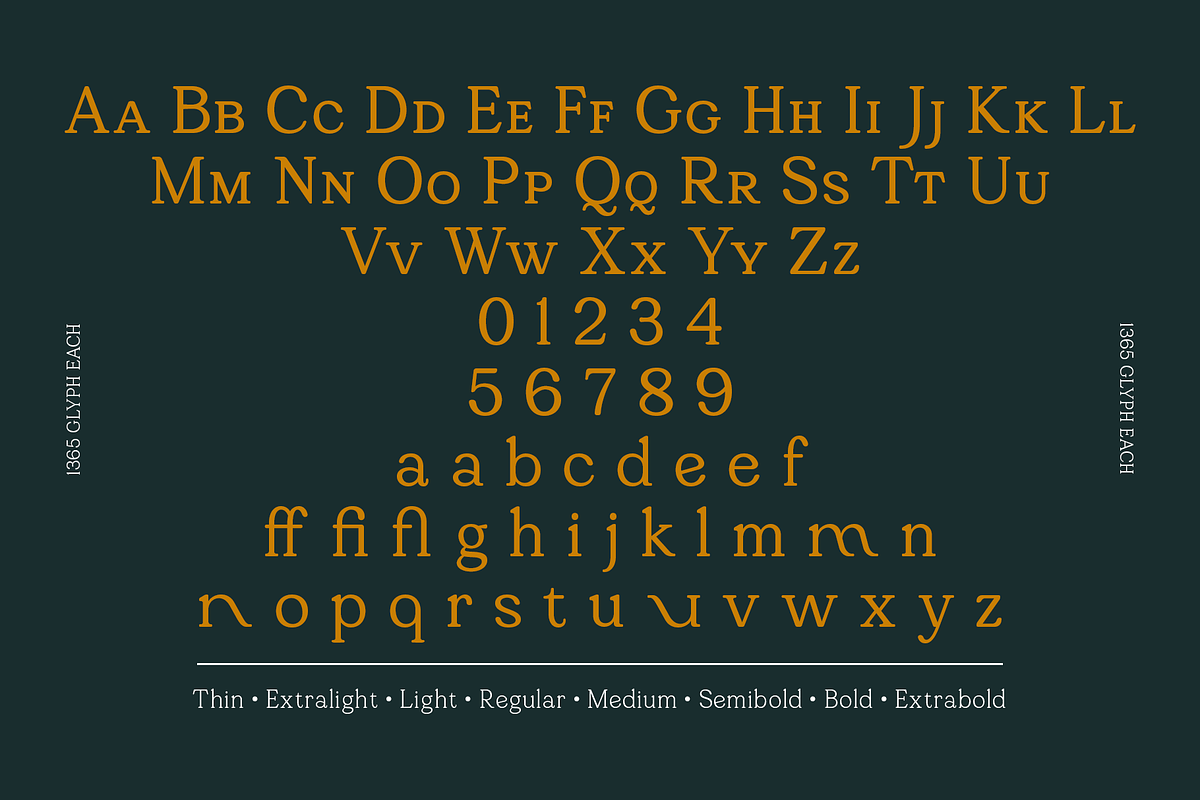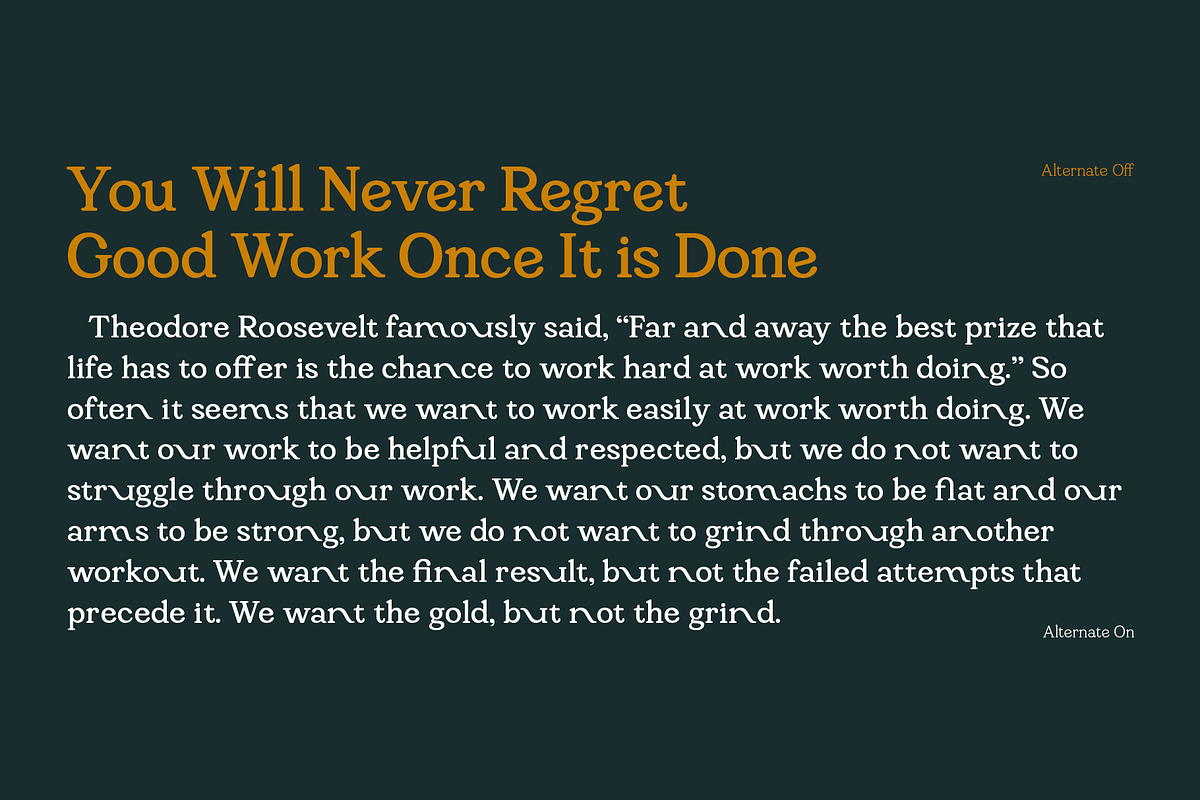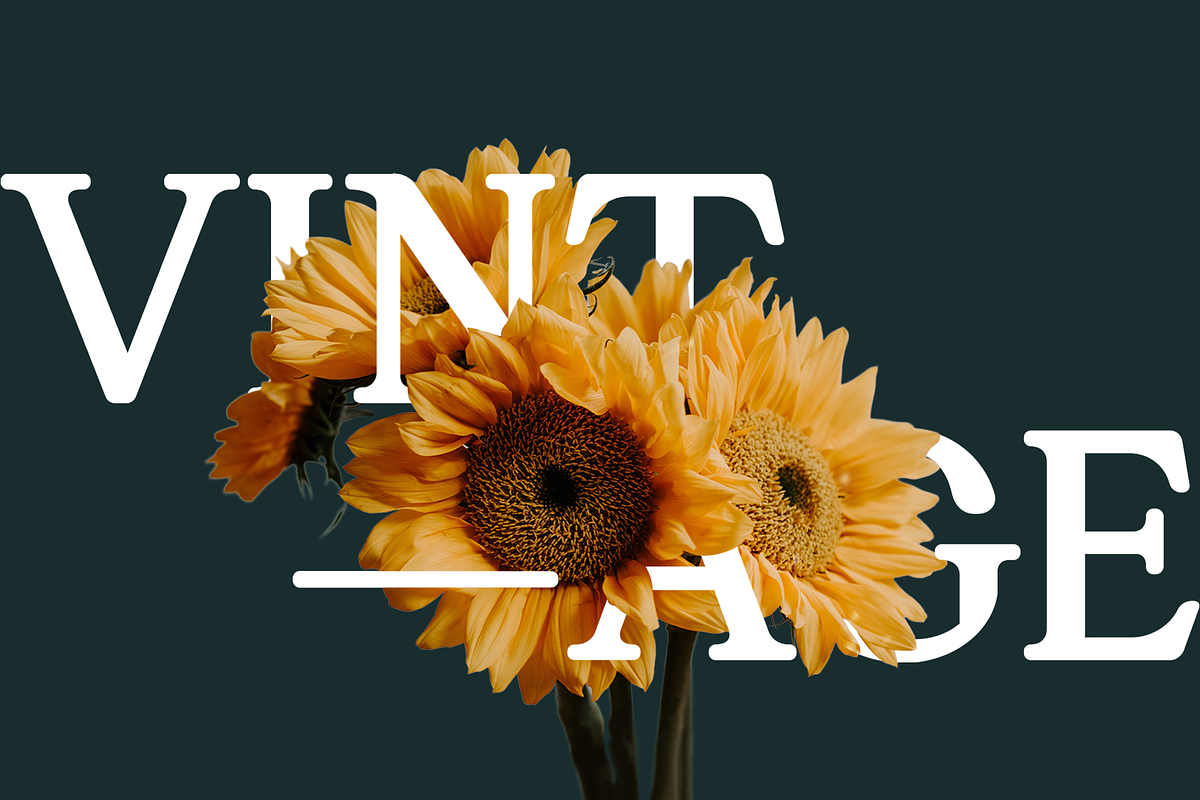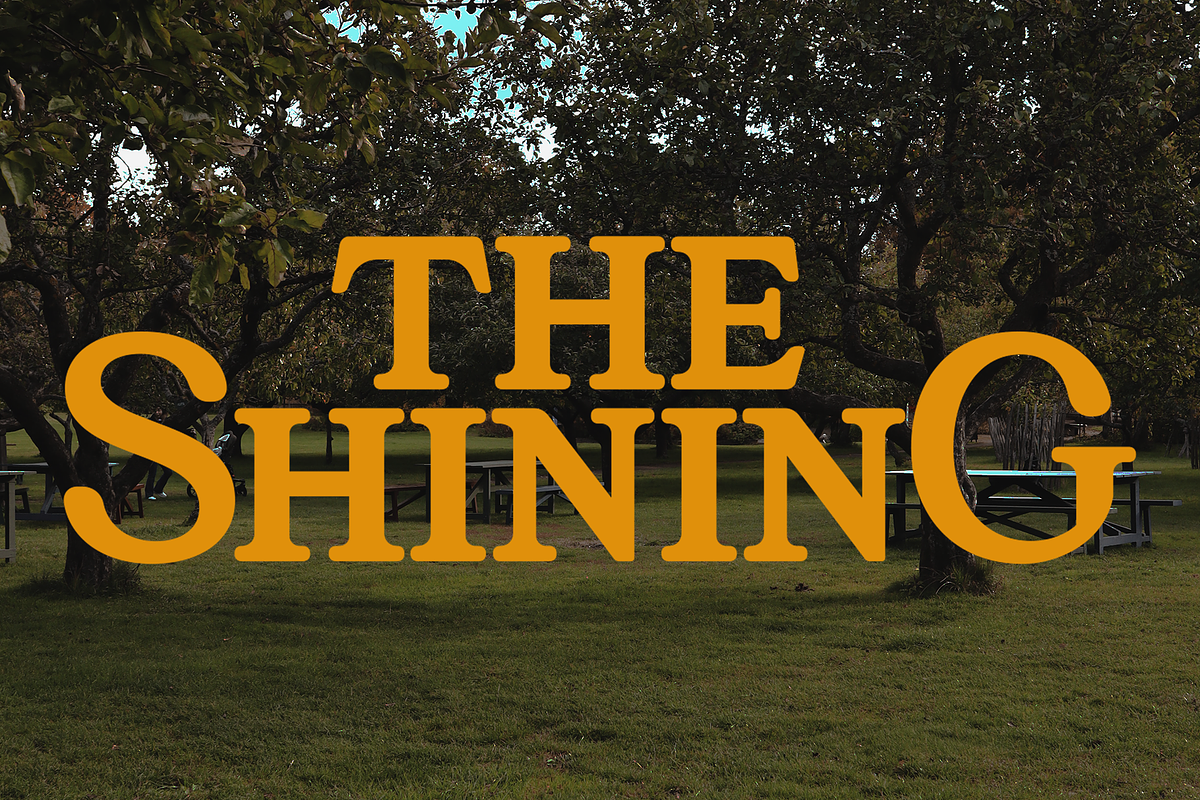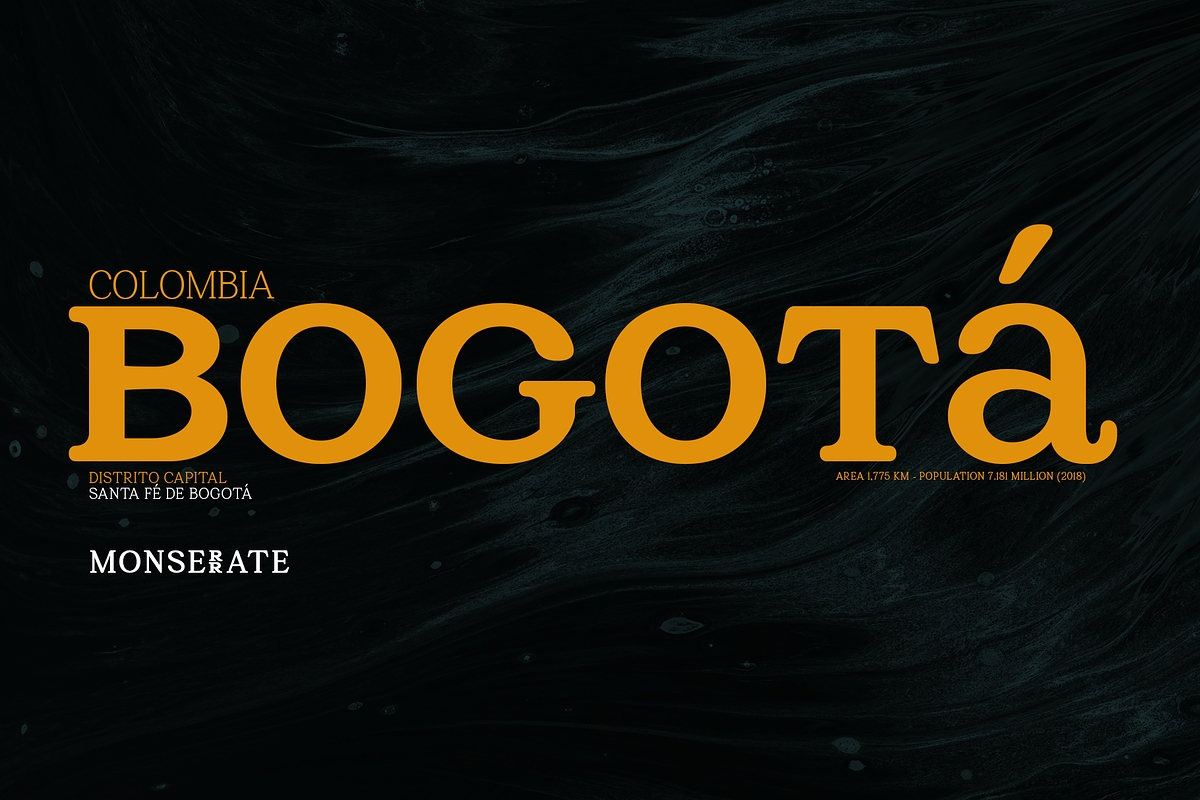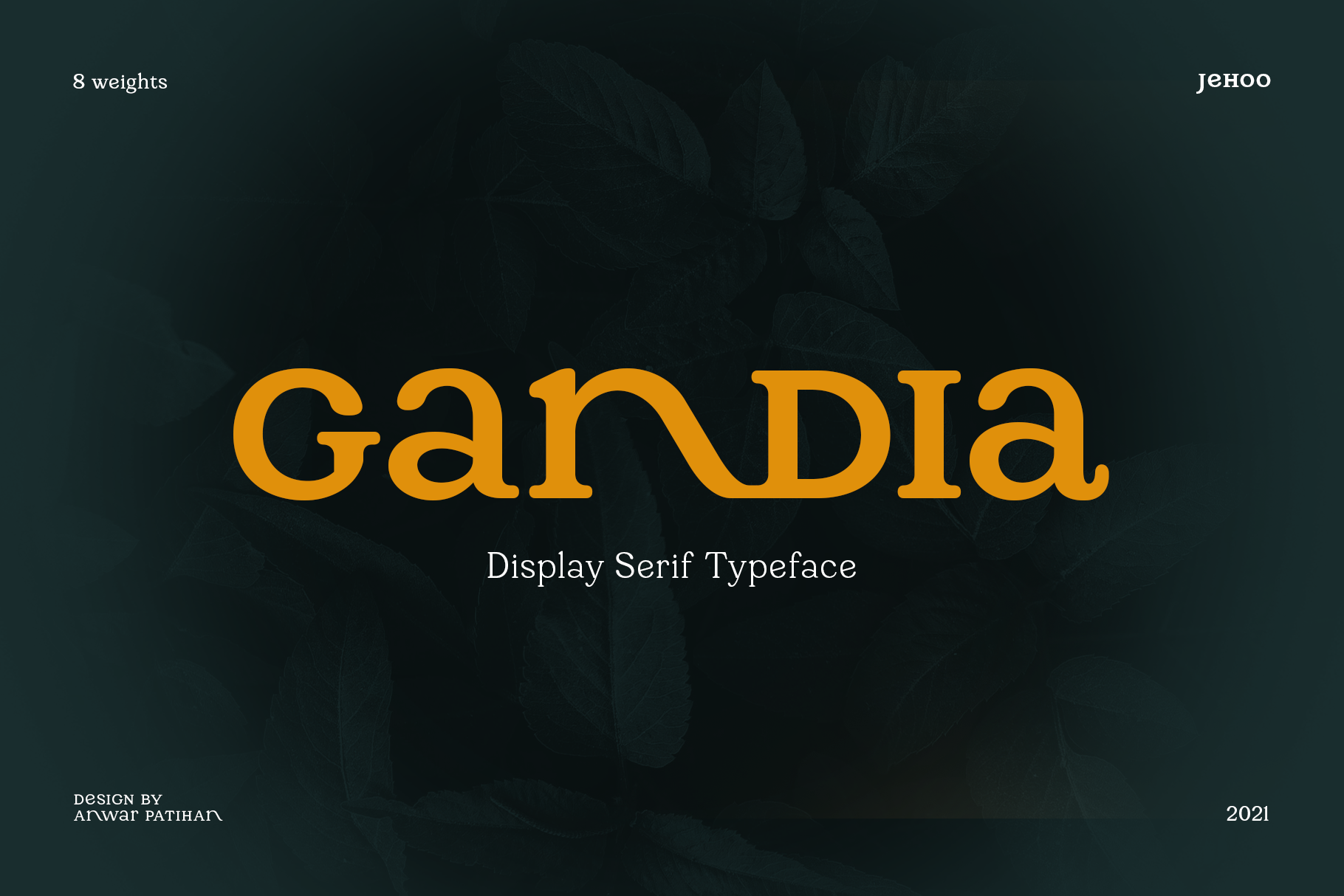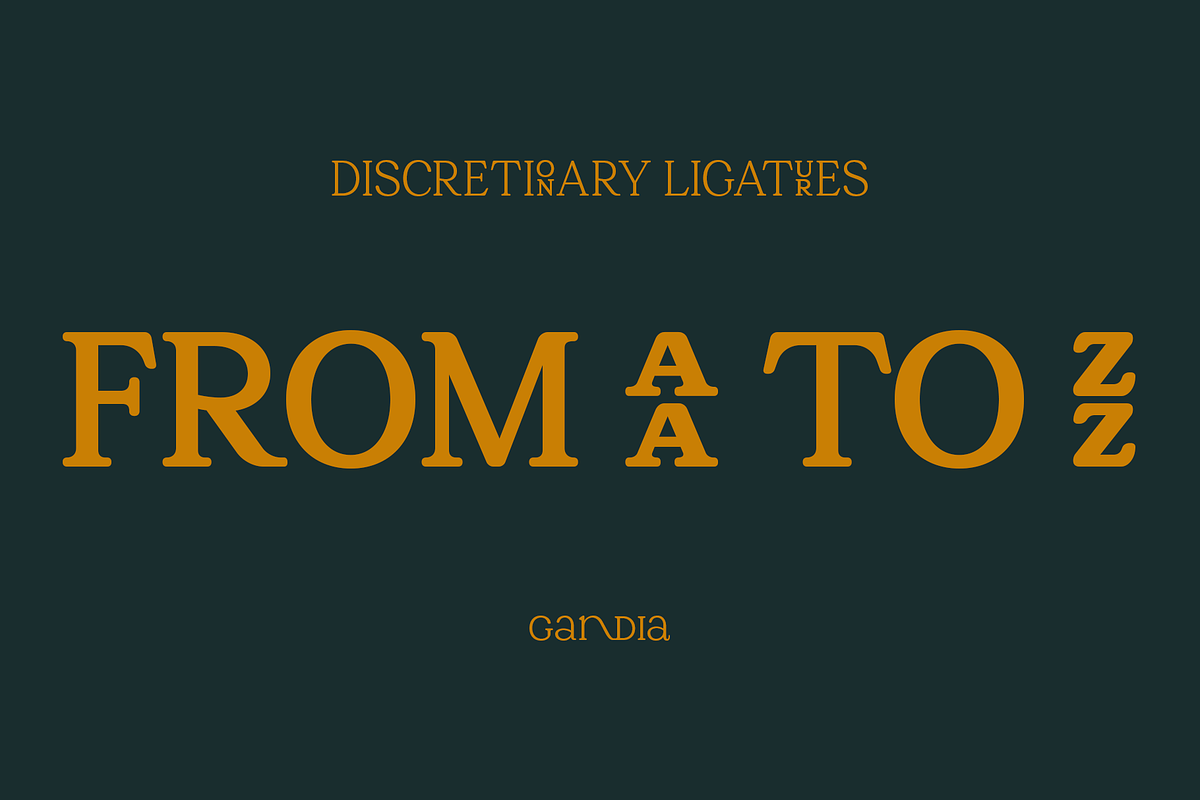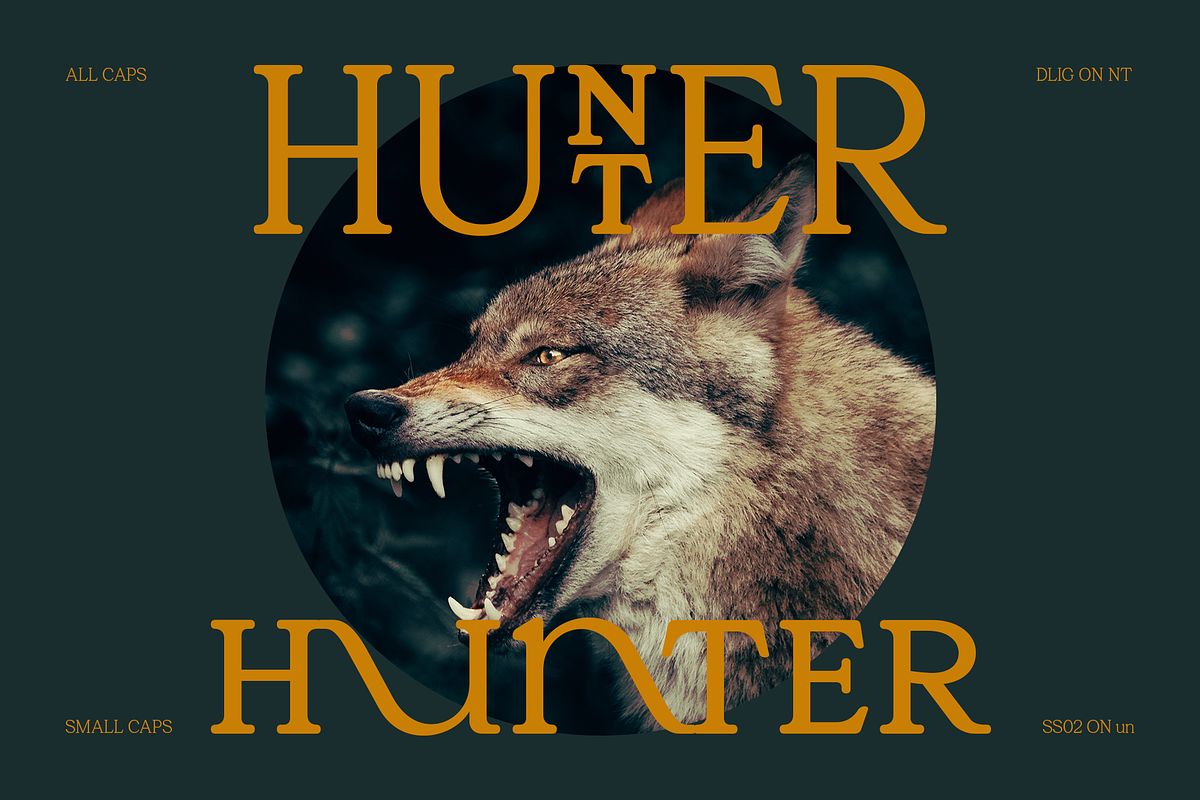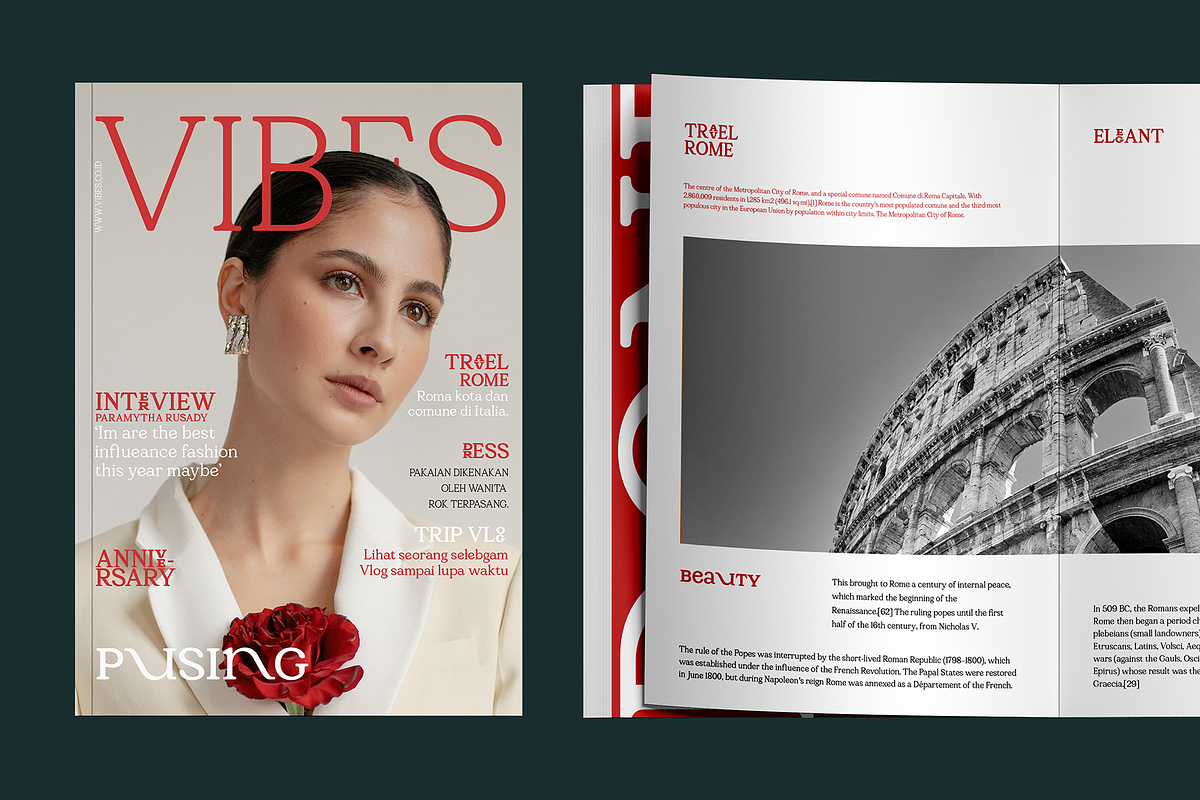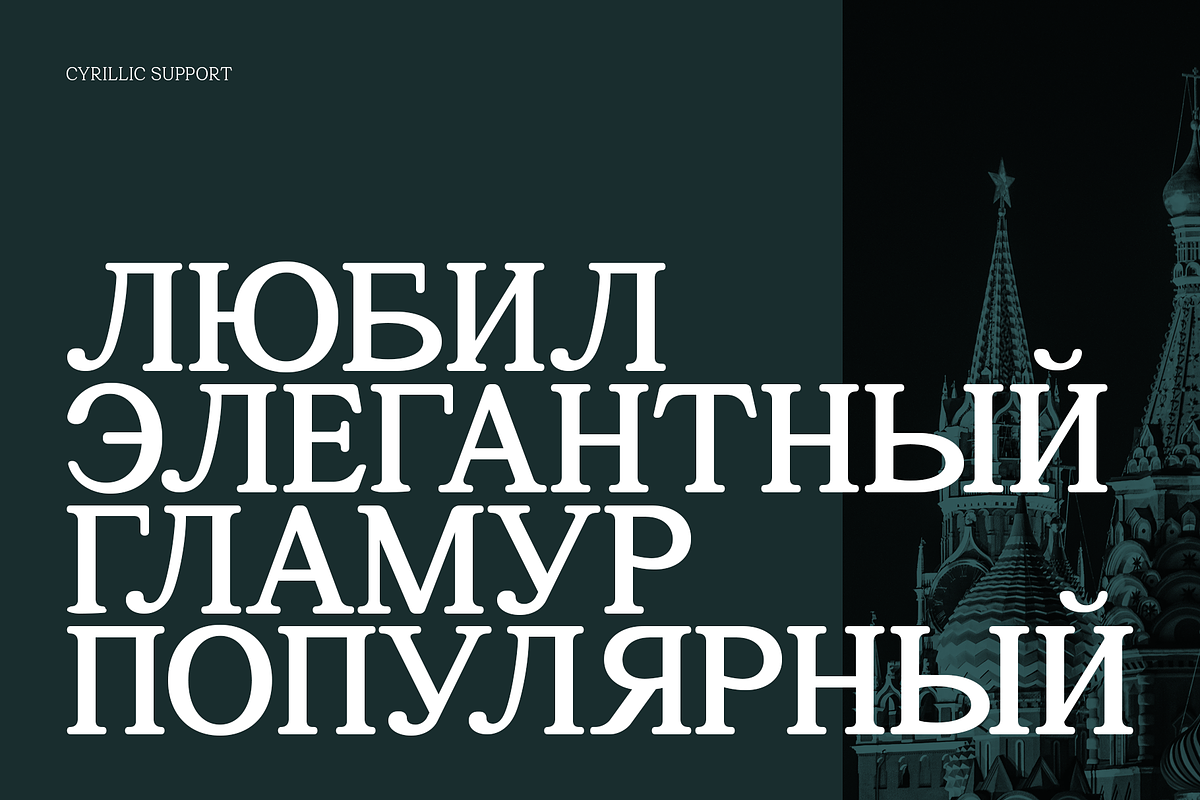
Gandia - Display Serif Typeface
Gandia is a true form of elegance and refinement. Curved corners give a soft yet bold impression. Inspired by the fast-growing vintage culture, this typeface can easily blend with modern retro design needs. With low contrast including the Cyrillic alphabet, it is very flexible to pair with other fonts. Gandia is perfect for various design needs such as magazines, posters, branding, clothes, quotes, web ui, social media posts, cover designs, Logo and many more.
Comes with 8 Weights: Thin, Extralight, Light, Regular, Medium, Semibold, Bold, Extrabold. Equipped with attractive Opentype features Smallcaps, Discretionary Ligature vertical on Uppercase and Ss01, Ss02, Ligature on Lowercase and each font has more than 1300 glyph.